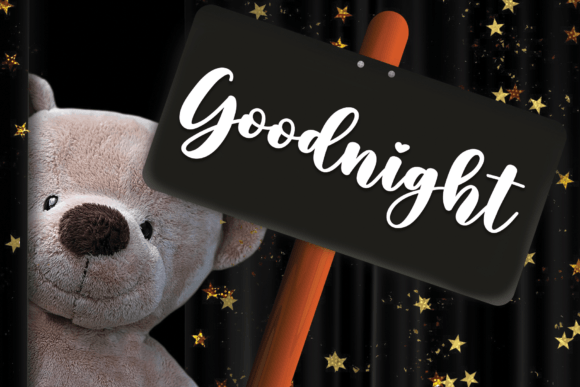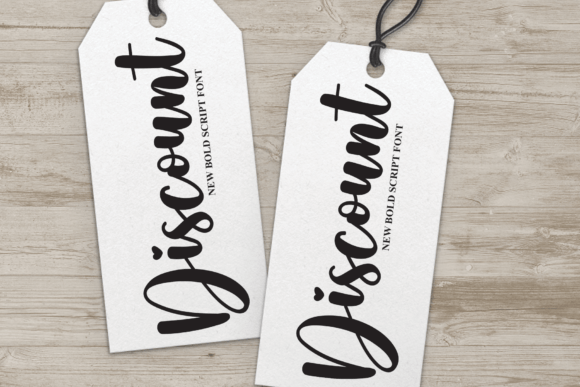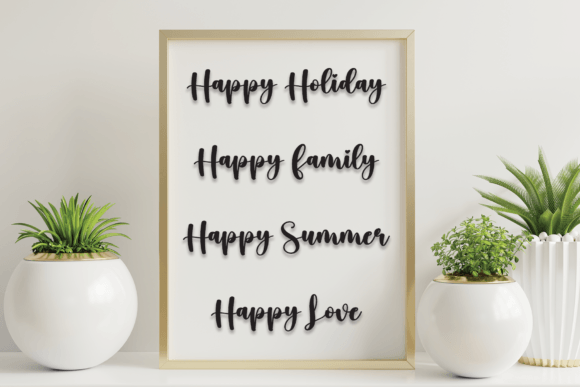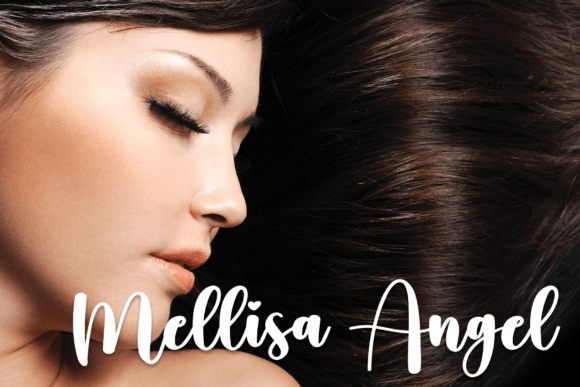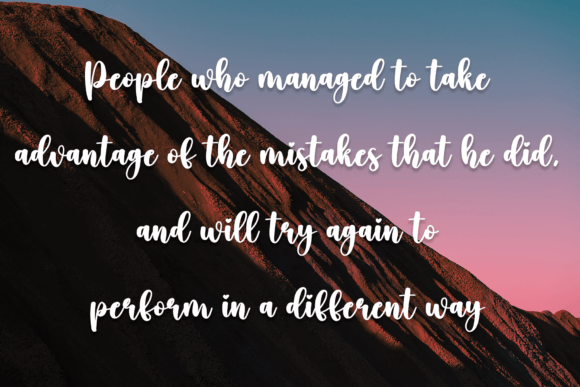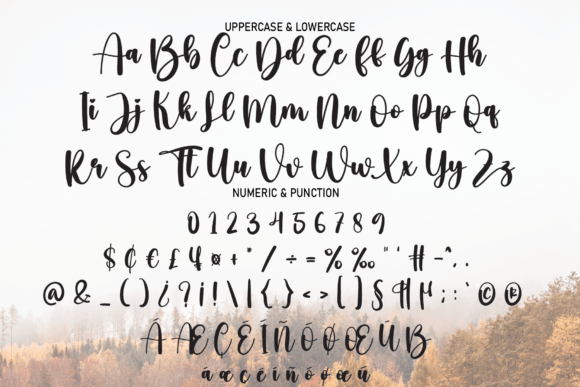
Welcome the Cozy Charm of Hello Autumn Font
As the seasons change and autumn leaves start to fall, designers and crafters are on the lookout for fonts that capture the warmth and coziness of this beautiful time of year. If you’re searching for a font that embodies the spirit of autumn, look no further than Hello Autumn Font. This lovely handwritten font is perfect for a wide range of projects, from wall displays and wedding invitations to social media posts, logos, and more.
The Perfect Font for Autumn-Inspired Projects
Hello Autumn Font is a versatile and charming font that is sure to add a touch of warmth and personality to any project. Its handwritten style gives it a personal and intimate feel, making it perfect for projects that require a human touch. Whether you’re designing a wedding invitation, a social media post, or a product label, Hello Autumn Font is the perfect choice.
Key Features of Hello Autumn Font
- Handwritten style: Hello Autumn Font features a beautiful handwritten style that is perfect for adding a personal touch to your projects.
- Versatile: This font is perfect for a wide range of projects, from wall displays and wedding invitations to social media posts, logos, and more.
- Easy to read: Despite its handwritten style, Hello Autumn Font is easy to read and understand, making it perfect for body text and headlines.
- Unique and creative: Hello Autumn Font is a one-of-a-kind font that is sure to make your projects stand out from the crowd.
Uses for Hello Autumn Font
Hello Autumn Font is perfect for a wide range of projects, including:
- Wall displays: Add a touch of autumn charm to your wall displays with Hello Autumn Font.
- Wedding invitations: Make your wedding invitations truly special with this beautiful handwritten font.
- Social media posts: Add a personal touch to your social media posts with Hello Autumn Font.
- Logos: Create a unique and memorable logo with Hello Autumn Font.
- Advertisements: Make your advertisements stand out with this eye-catching font.
- Product packaging: Add a touch of autumn charm to your product packaging with Hello Autumn Font.
- Product designs: Create beautiful product designs with this versatile font.
- Labels: Make your labels truly special with Hello Autumn Font.
- Photography: Add a watermark or text overlay to your photos with Hello Autumn Font.
- Invitations: Create beautiful invitations for any occasion with this lovely font.
- Stationery: Add a touch of autumn charm to your stationery with Hello Autumn Font.
Why Choose Hello Autumn Font?
If you’re looking for a font that captures the spirit of autumn, Hello Autumn Font is the perfect choice. Its handwritten style and versatile design make it perfect for a wide range of projects. Plus, its unique and creative design is sure to make your projects stand out from the crowd.
Hello Autumn Font is a lovely handwritten font that is perfect for designers and crafters who want to add a touch of autumn charm to their projects. With its versatile design and easy-to-read style, it’s perfect for a wide range of projects, from wall displays and wedding invitations to social media posts, logos, and more. So why wait? Download Hello Autumn Font today and start creating beautiful projects that capture the spirit of autumn.
Tips and Tricks for Using Hello Autumn Font
- Experiment with different colors: Hello Autumn Font looks great in a variety of colors, so don’t be afraid to experiment and find the perfect color for your project.
- Use it with other fonts: Hello Autumn Font pairs well with other fonts, so try using it with a bold font for headlines or a clean font for body text.
- Add a personal touch: Hello Autumn Font is perfect for adding a personal touch to your projects, so don’t be afraid to get creative and add your own unique style.